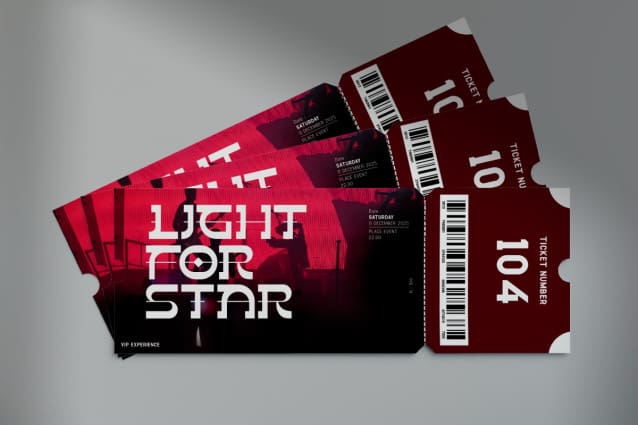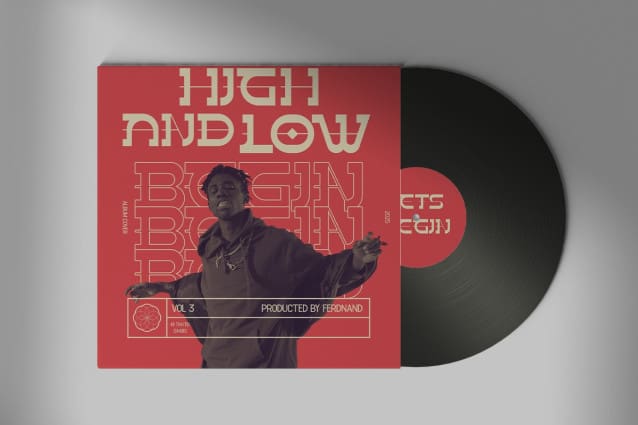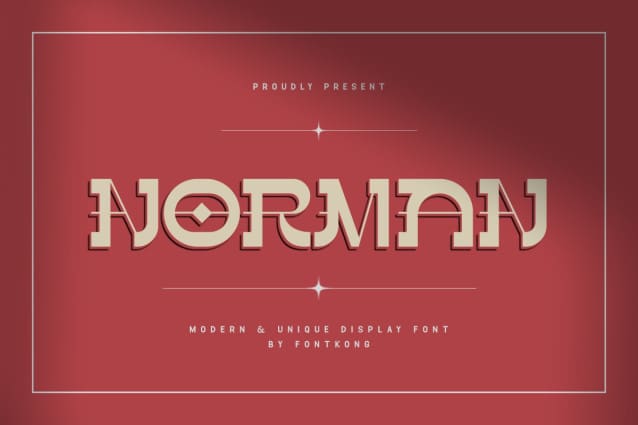
Norman Font
Norman Font – Modern Unique Display Font features strong modern font elements. Each letter of this font is not easy to distinguish. The letters in this font resemble streams of light designed to look modern and unique.
This type of font is the best for projects using themes of games, future technology, space travel, and visual reality. This font can be used as a digital font, such as on the web, video, and other displays, and as a printed font on posters, banners, and book covers. Norman Font – Modern Unique Display Font can be used on the covers of tech books and magazines.
Norman Font – Modern Unique Display Font is not suitable for writing newspapers, magazines, or articles on the web. This font is better used for writing short sentences or words because it will look cool and modern.